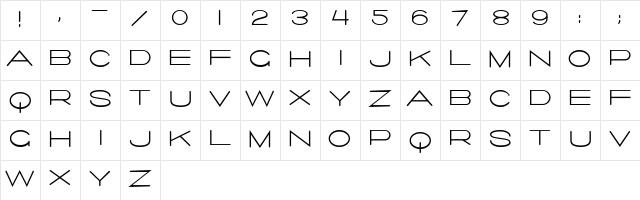
Salaryman Regular
Design Context for Salaryman Typeface
Salaryman offers clean, dependable letterforms without strong stylistic allegiance, making it a practical choice for designers who need flexibility.